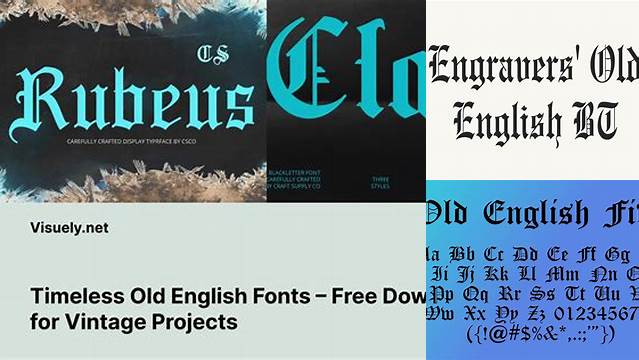
Old English Font: Free Download For Your Projects
Hey guys! Are you looking to add a touch of classic elegance to your designs? Look no further! The old english font, with its distinctive and timeless appeal, is perfect for a wide range of projects. From invitations and logos to certificates and artistic creations, this font style can instantly elevate your work. Let's dive into the world of old english fonts and explore how you can download them for free and use them effectively. Finding the right font can be a game-changer, and trust me, the old english font is a classic for a reason. So, let’s get started and discover the best options for you!
1. What is Old English Font?
Old English font, also known as blackletter or gothic script, is a typeface characterized by its bold, intricate, and highly stylized letterforms. Originating in Europe during the Middle Ages, this font style exudes a sense of history, tradition, and sophistication. The distinctive appearance of old english font makes it a popular choice for projects that aim to convey a sense of formality, authenticity, or vintage charm. Think about those classic book covers or ancient manuscripts – the old english font is often the star of the show. But what exactly makes it so unique? Well, it's all in the details. The sharp, angular strokes and elaborate flourishes give it a distinct personality that’s hard to miss. And that’s why so many designers and creatives still turn to it today. Using an old english font can really set your work apart, giving it that extra layer of class and elegance. Whether you're working on a logo, a wedding invitation, or a historical document, this font has got you covered. So, let’s dig a little deeper and see how you can get your hands on some of these beautiful fonts for free!
4. Understanding Old English Font Styles and Variations
When we talk about old english fonts, we're not just talking about one single style. Oh no, guys, there's a whole world of variations out there! Understanding these different styles can help you choose the perfect font for your project. One common variation is the classic blackletter style, which is characterized by its thick, angular strokes and dramatic flourishes. This style is often used for formal documents, certificates, and traditional designs. Then there’s the Fraktur style, which is a more elaborate and decorative version of blackletter. It's got a real ornate feel to it and is perfect for adding a touch of elegance and sophistication. If you’re after something a little more modern, you might want to check out some of the contemporary takes on the old english font. These fonts often blend traditional elements with cleaner lines and more streamlined designs. This can be a great option if you want to use an old english font in a more modern context. And let's not forget about the variations in weight and width. Some old english fonts are bold and commanding, while others are lighter and more delicate. The weight of the font can have a big impact on the overall feel of your design, so it’s worth experimenting with different options. So, whether you’re looking for something classic and traditional or something with a modern twist, there’s an old english font style out there for you. It's all about finding the one that perfectly matches your vision!
5. How to Choose the Right Old English Font for Your Project
Choosing the right old english font can feel like a bit of a Goldilocks situation, guys – you need one that's just right! But don't worry, I’m here to help. The first thing to consider is the overall tone and message of your project. Are you aiming for something formal and traditional, or something a little more edgy and modern? The old english font you choose should reflect this. For example, if you're designing a wedding invitation, you might opt for a more elegant and refined old english font with delicate flourishes. On the other hand, if you're creating a logo for a rock band, you might go for a bolder and more aggressive old english font style. Another important factor to think about is readability. While old english fonts are beautiful and distinctive, they can sometimes be a little tricky to read, especially in smaller sizes. So, if your text needs to be easily legible, you might want to choose a simpler and cleaner old english font variation. Think about the context in which the font will be used. Will it be printed on paper, displayed on a screen, or used in a logo? The medium can affect how the font appears, so it’s a good idea to test it out in different formats before making a final decision. And don't be afraid to experiment! Try out different old english fonts and see how they look with your design. Sometimes the best way to find the perfect font is to just play around and see what works. Trust your instincts and have fun with it!